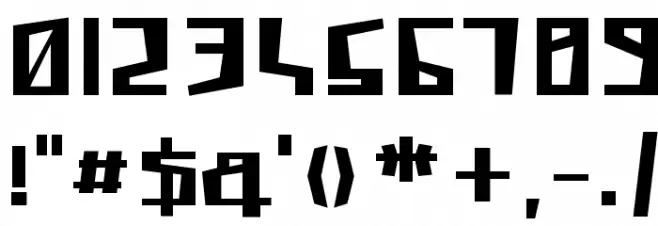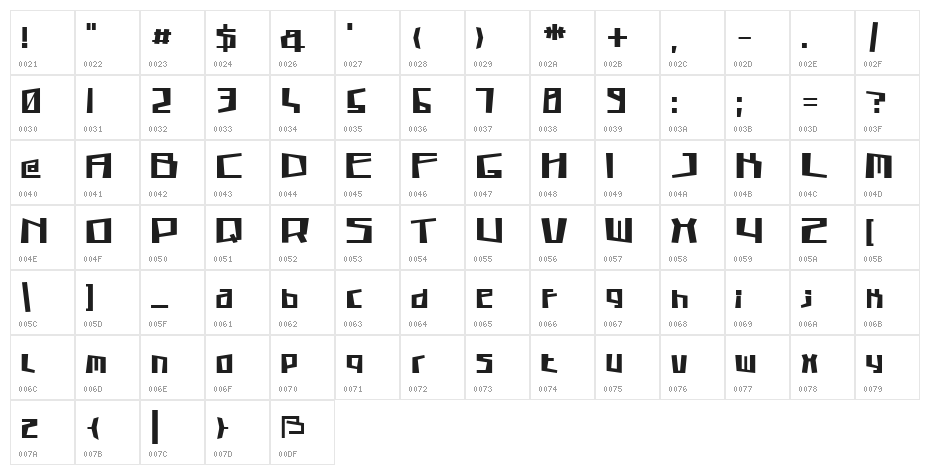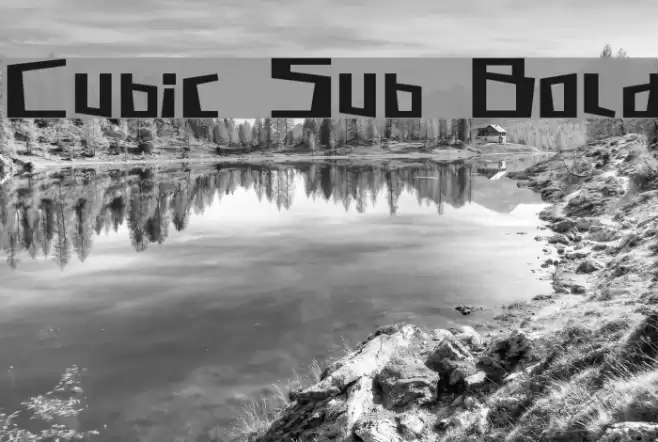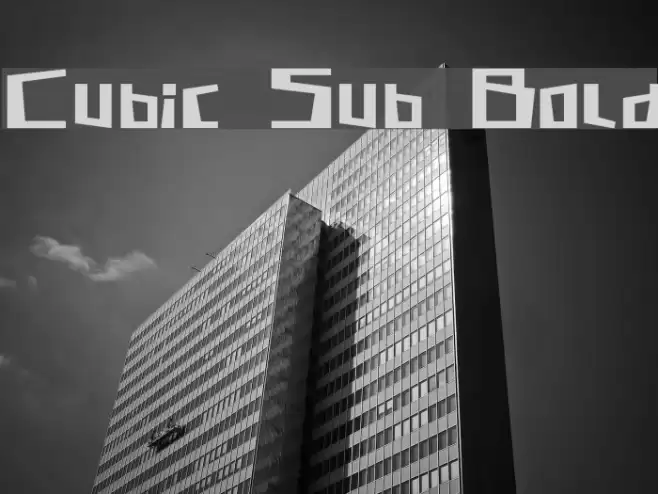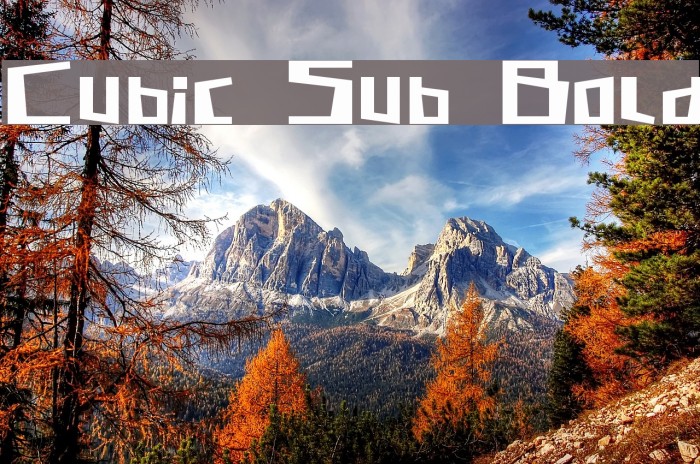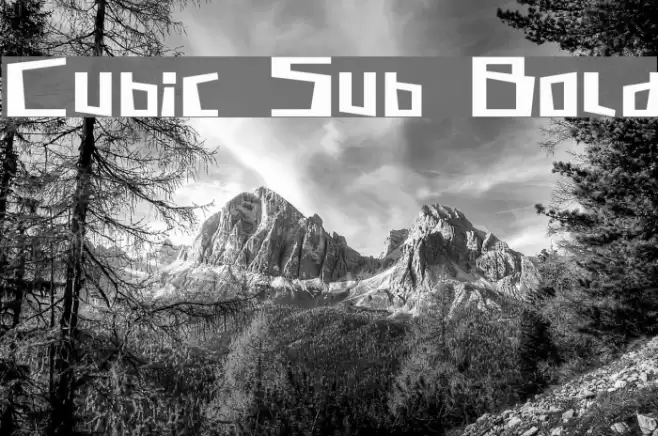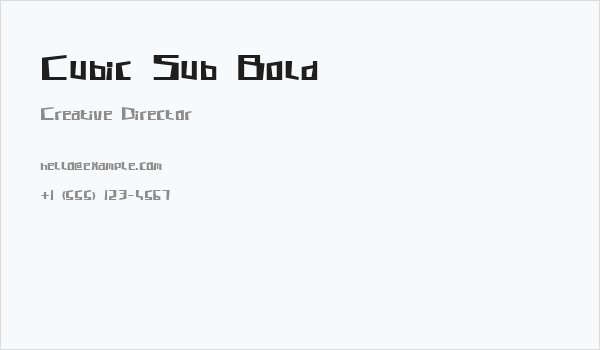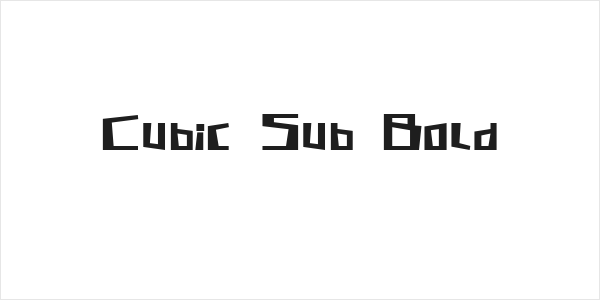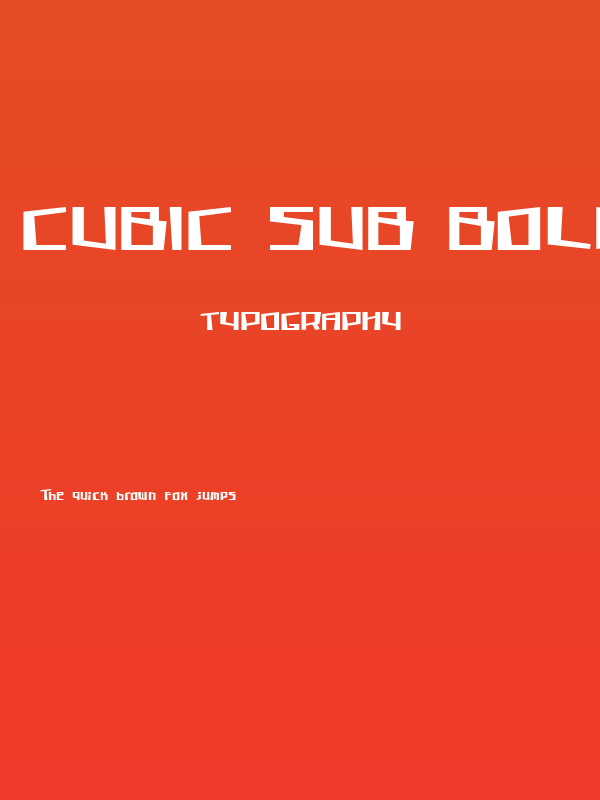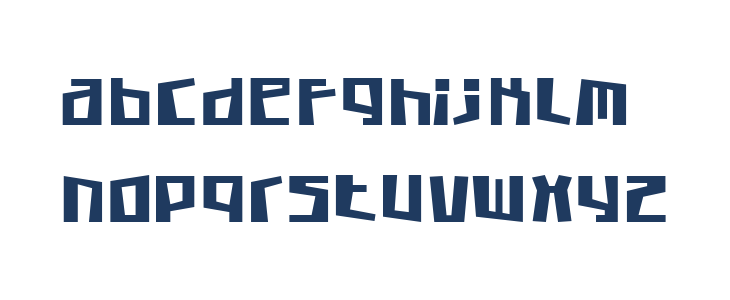
Cubic Sub Bold Font
Cubic Sub Bold Description
This font features a bold and geometric design, characterized by its angular and blocky letterforms. Each character is constructed with sharp edges and a uniform thickness, giving it a strong and assertive appearance. The uppercase and lowercase letters maintain a consistent style, with slight variations to enhance readability. The numerals and special characters follow the same geometric theme, ensuring a cohesive look across all text elements. This font's unique style makes it stand out, offering a modern and edgy aesthetic that is both eye-catching and versatile.
| Proposed Projects | Ideal for modern branding, poster design, video game graphics, and urban-themed projects. |